Script Meets Fraktur Alphabet | Font Design
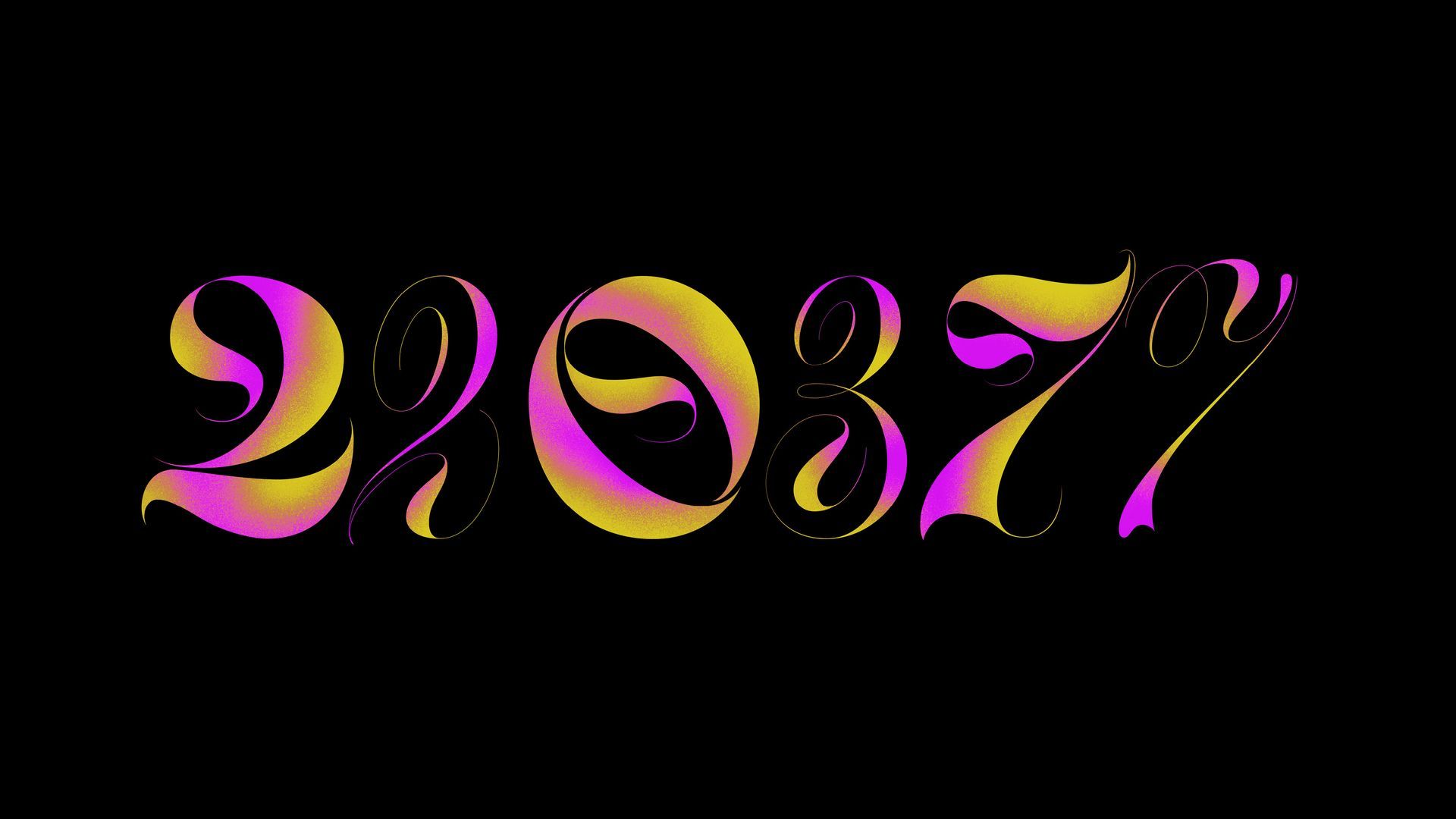
Script Meets Franktur Alphabet | Type Design
In January 2023 I studied Blackletter again, this time under the tuition of John Stevens. This is my sixth time studying this calligraphy style and I’m currently fascinated by the Fraktur ultra bold version of Rudolf Koch.
With the lettering design above, I am conceptualising two styles that are close to my heart, while exploring further shapes, contrast, colour and texture.
36 Days of Type | 2023 Edition
In 2016 and 2017, I joined 36 Days of Type designing two sets of display uppercase alphabets. My 2016 entry turned into my first independent font family called Green Fairy.
Inspired by the lettering project above, I decided to develop two sets of display alphabets and join the 2023 edition again. I hope you’ll enjoy them as much as I did while creating them.
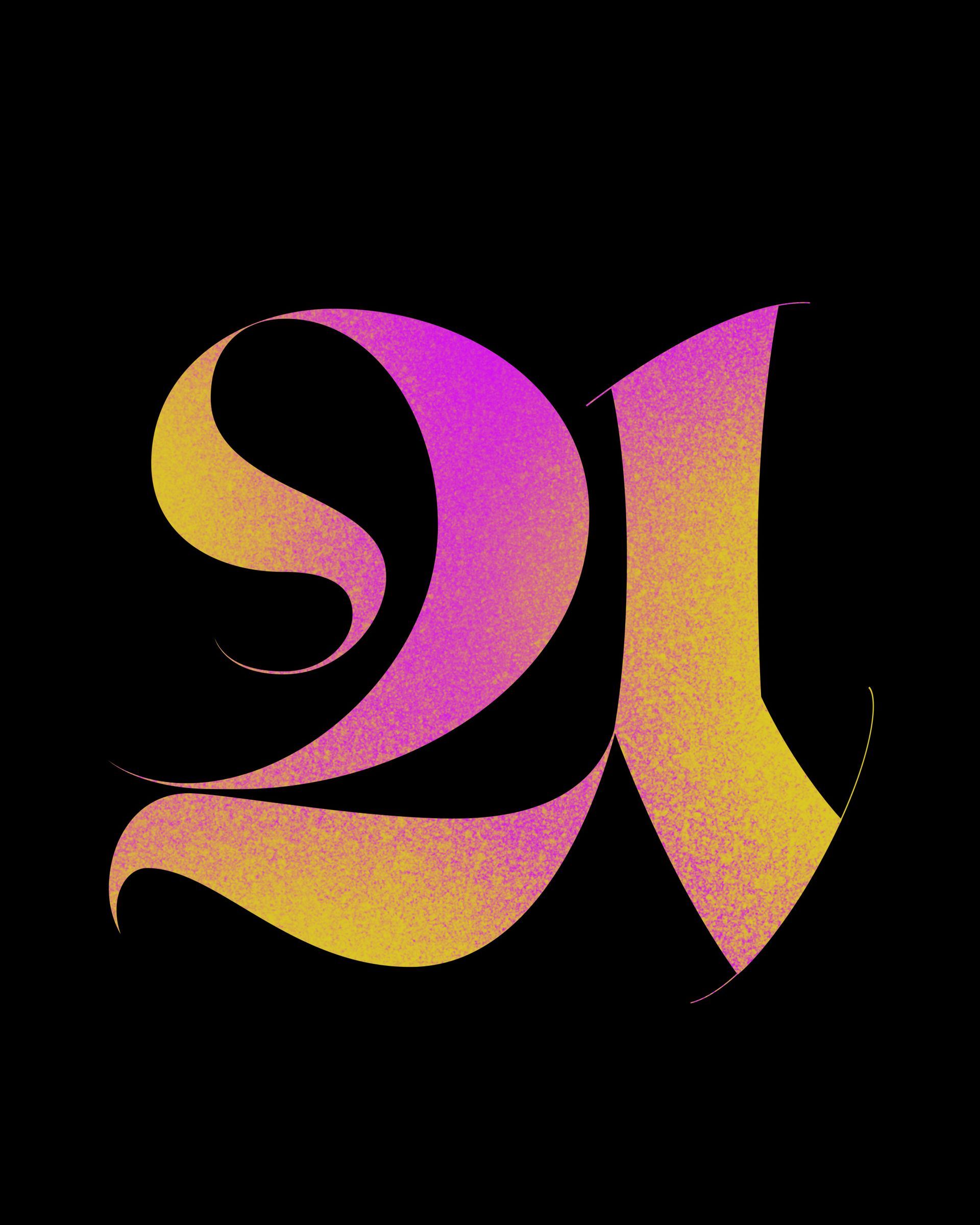
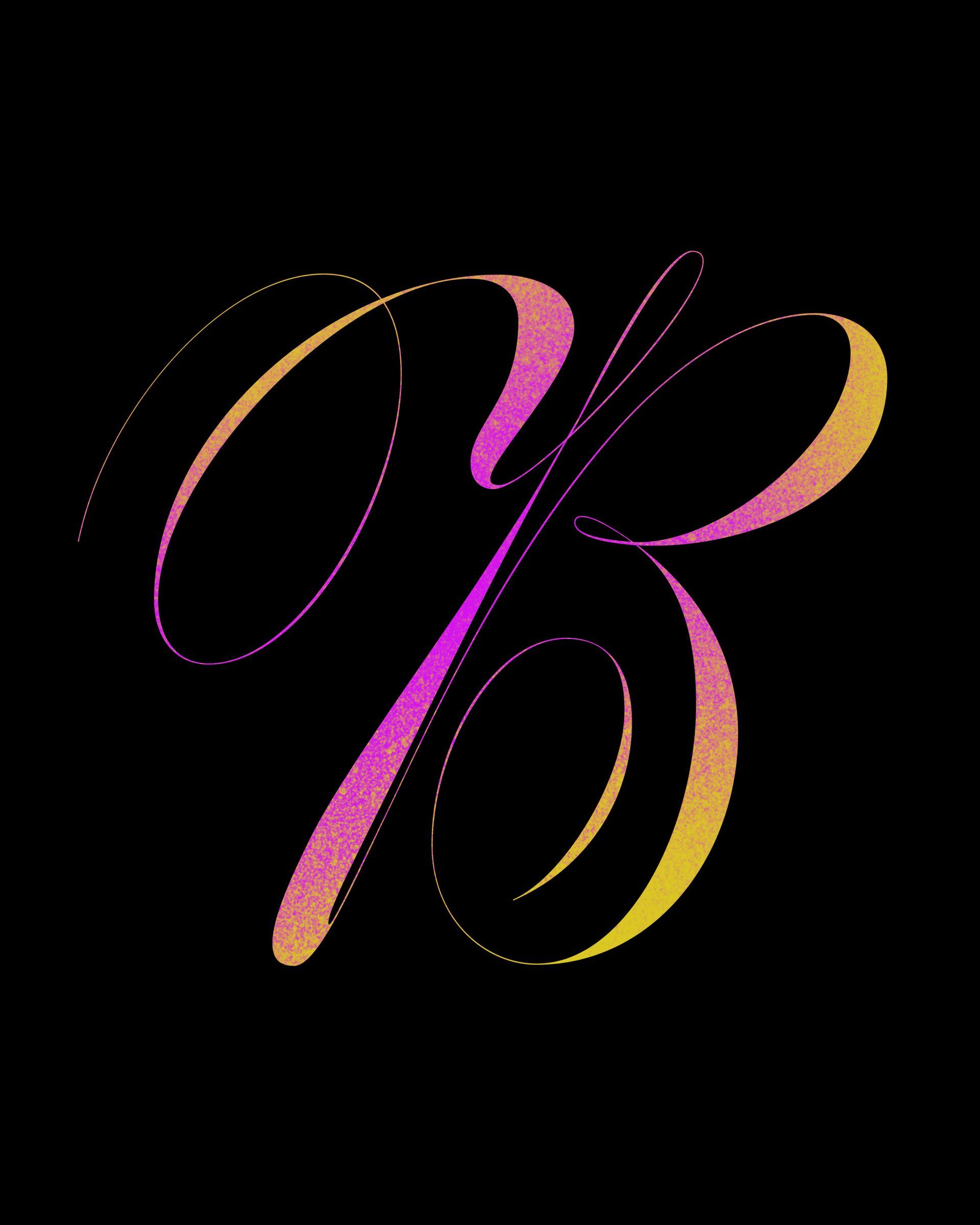
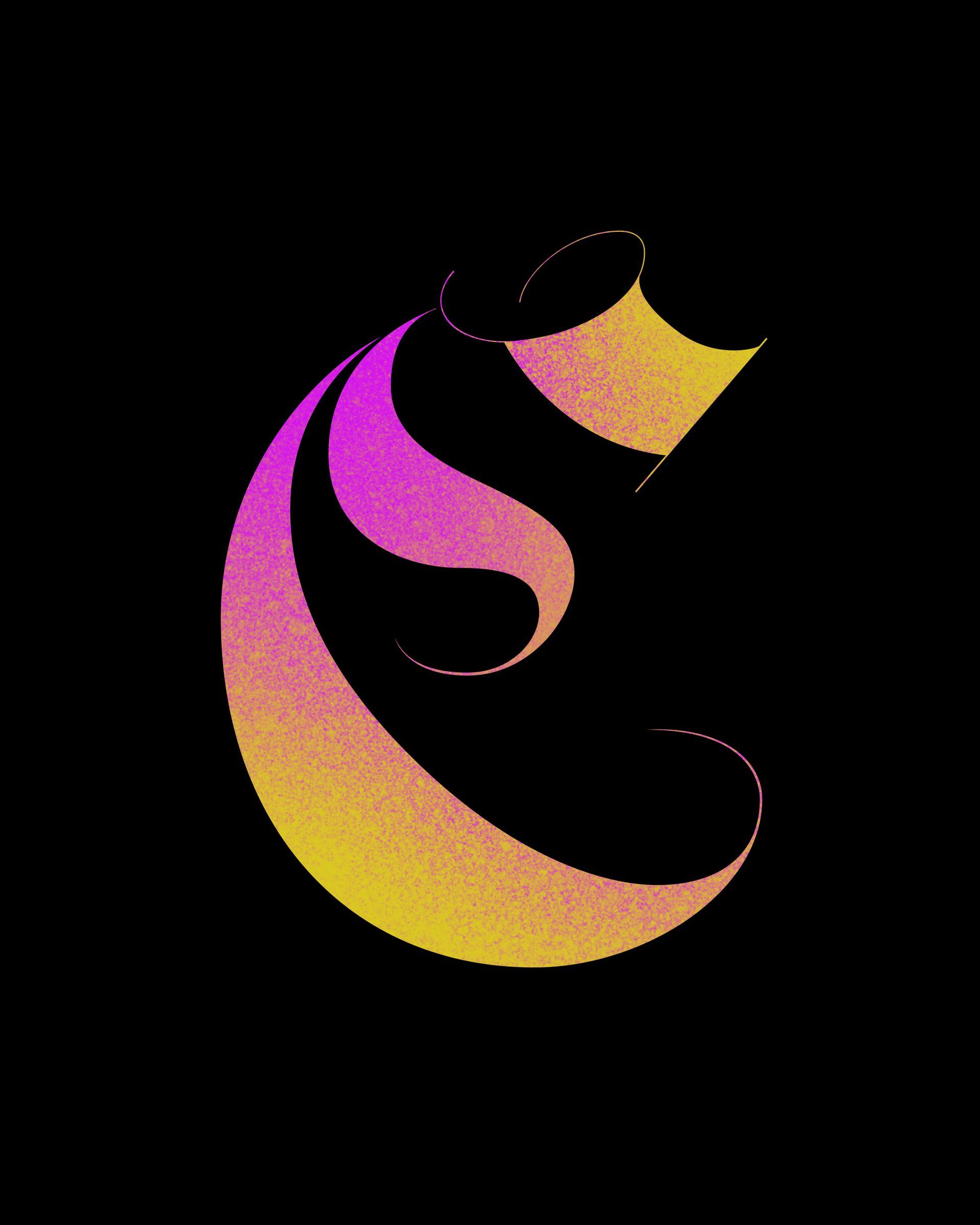
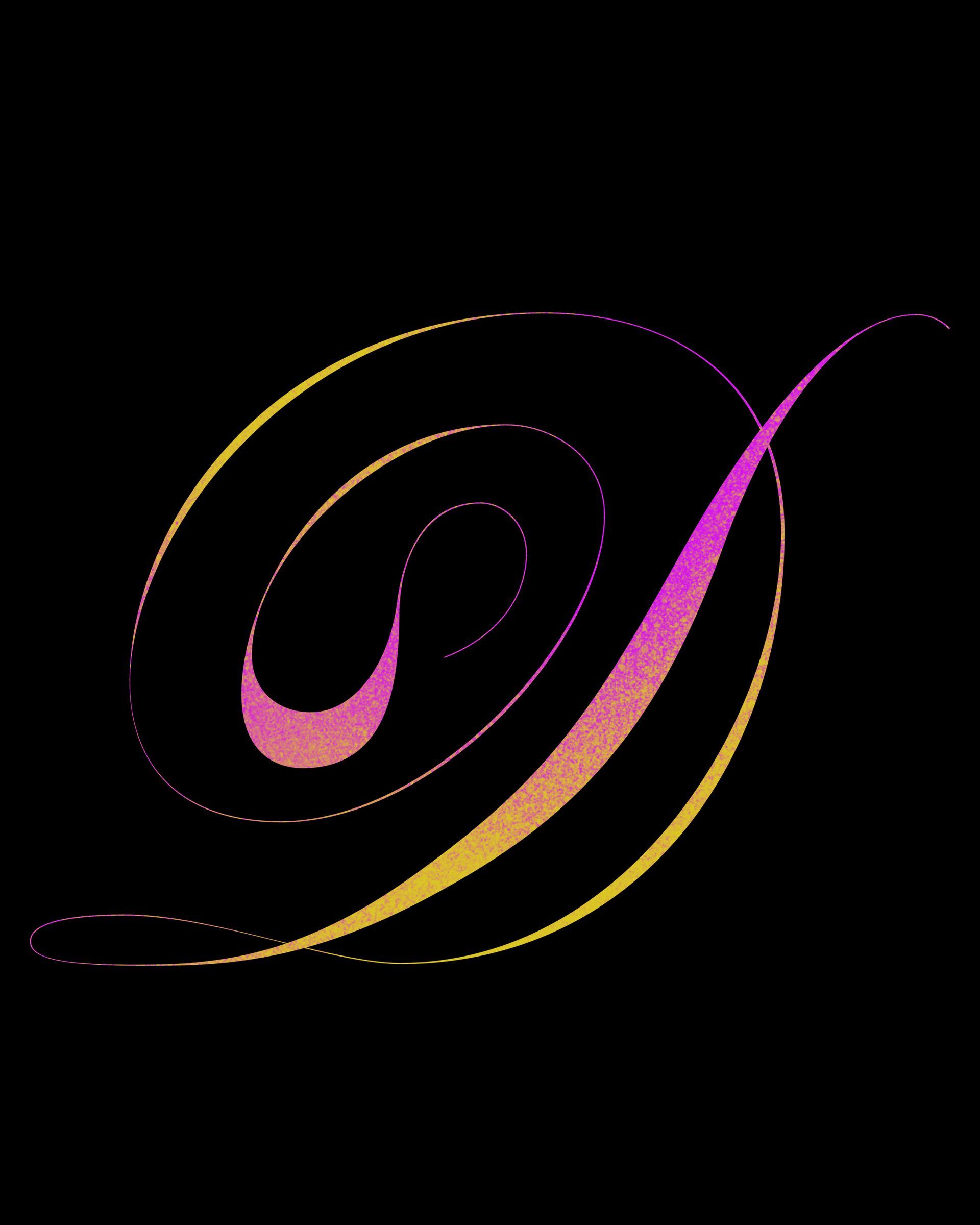
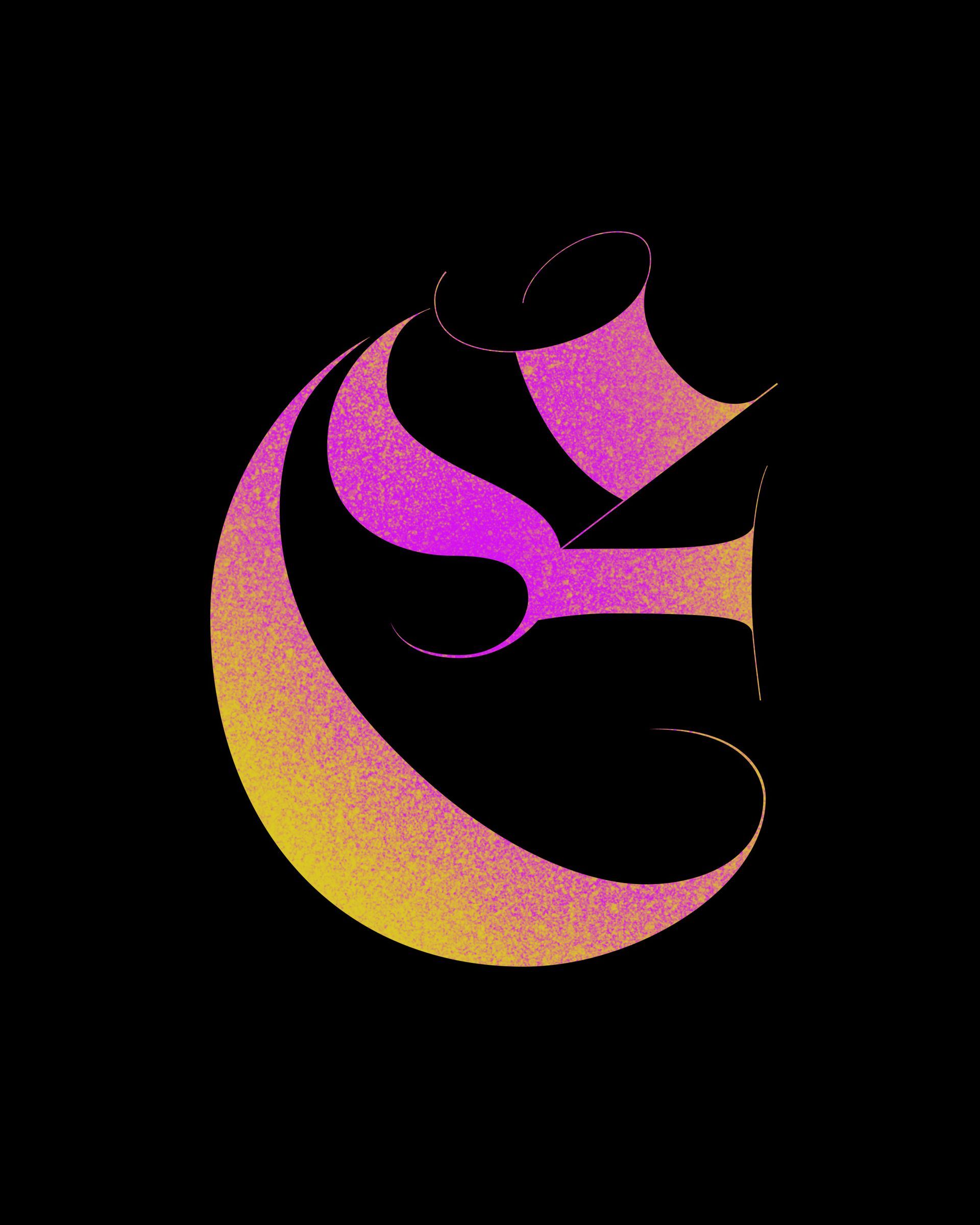
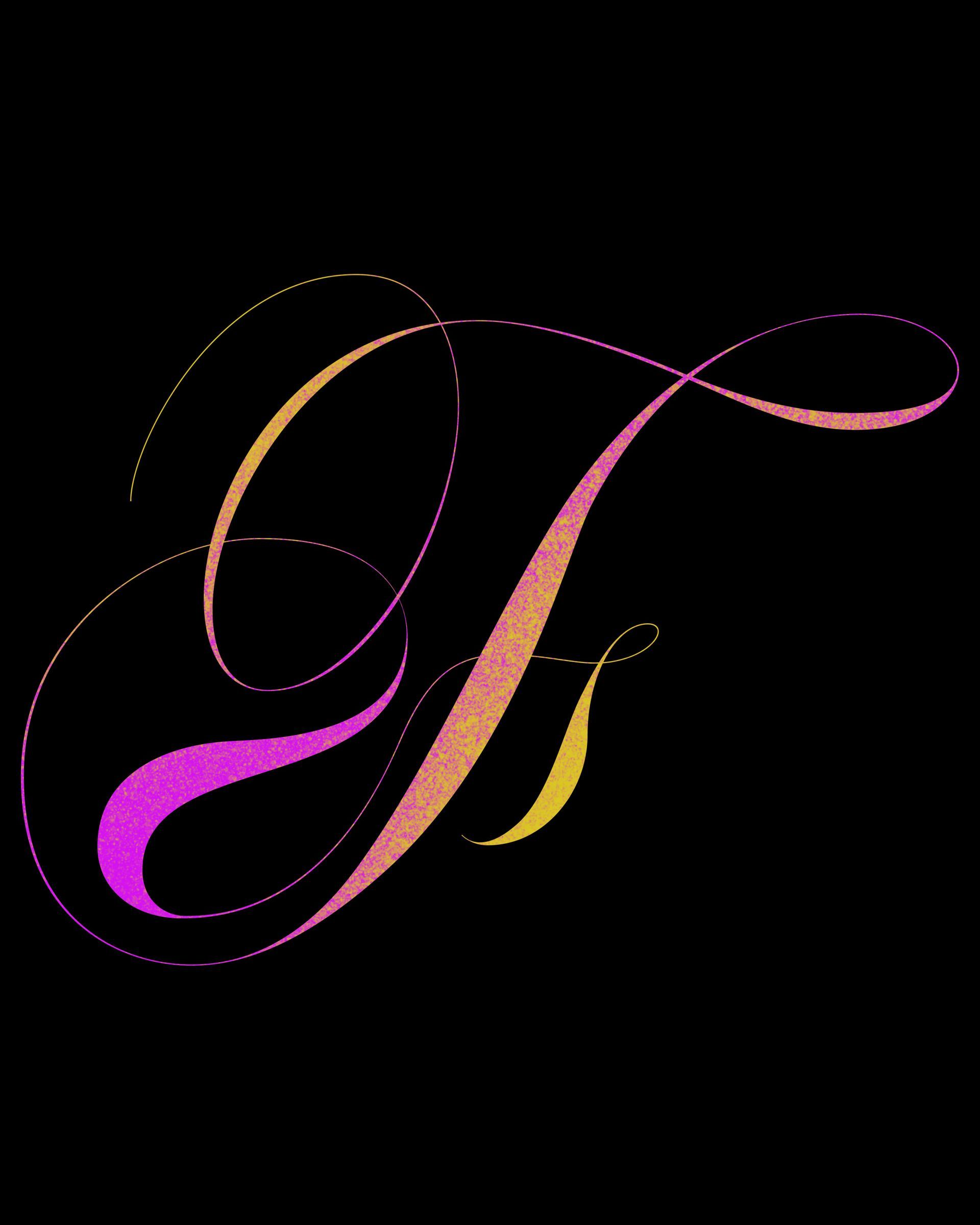
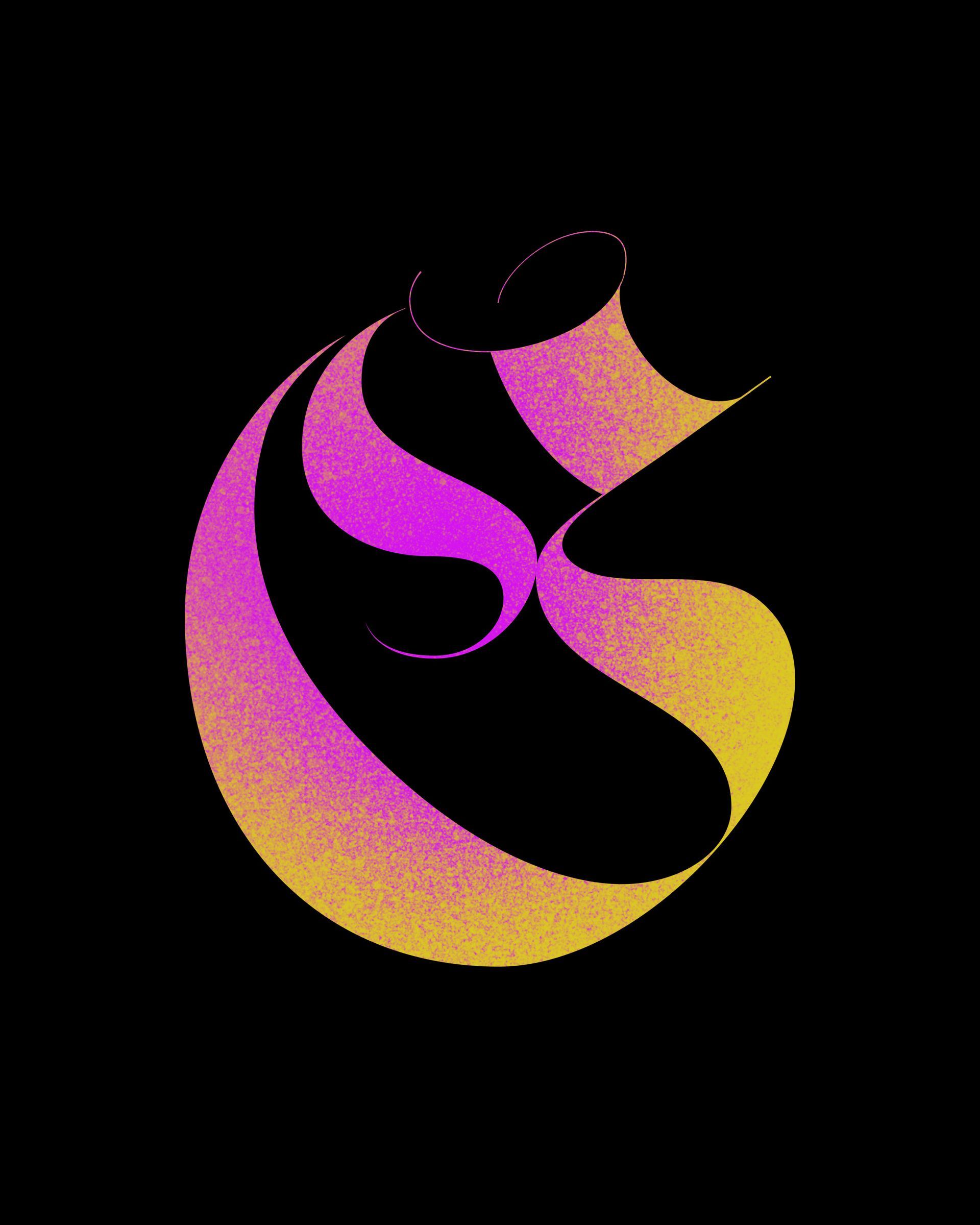
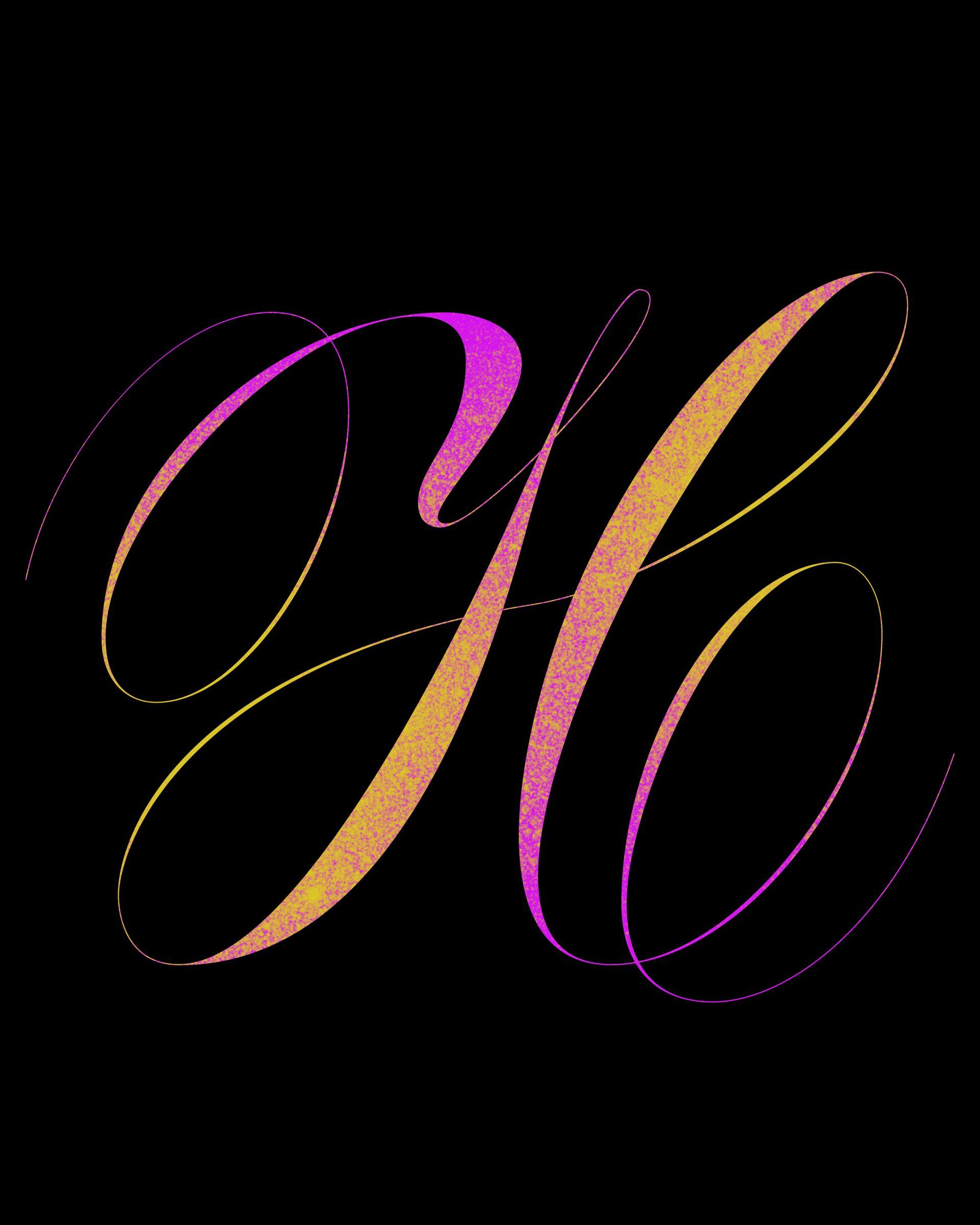
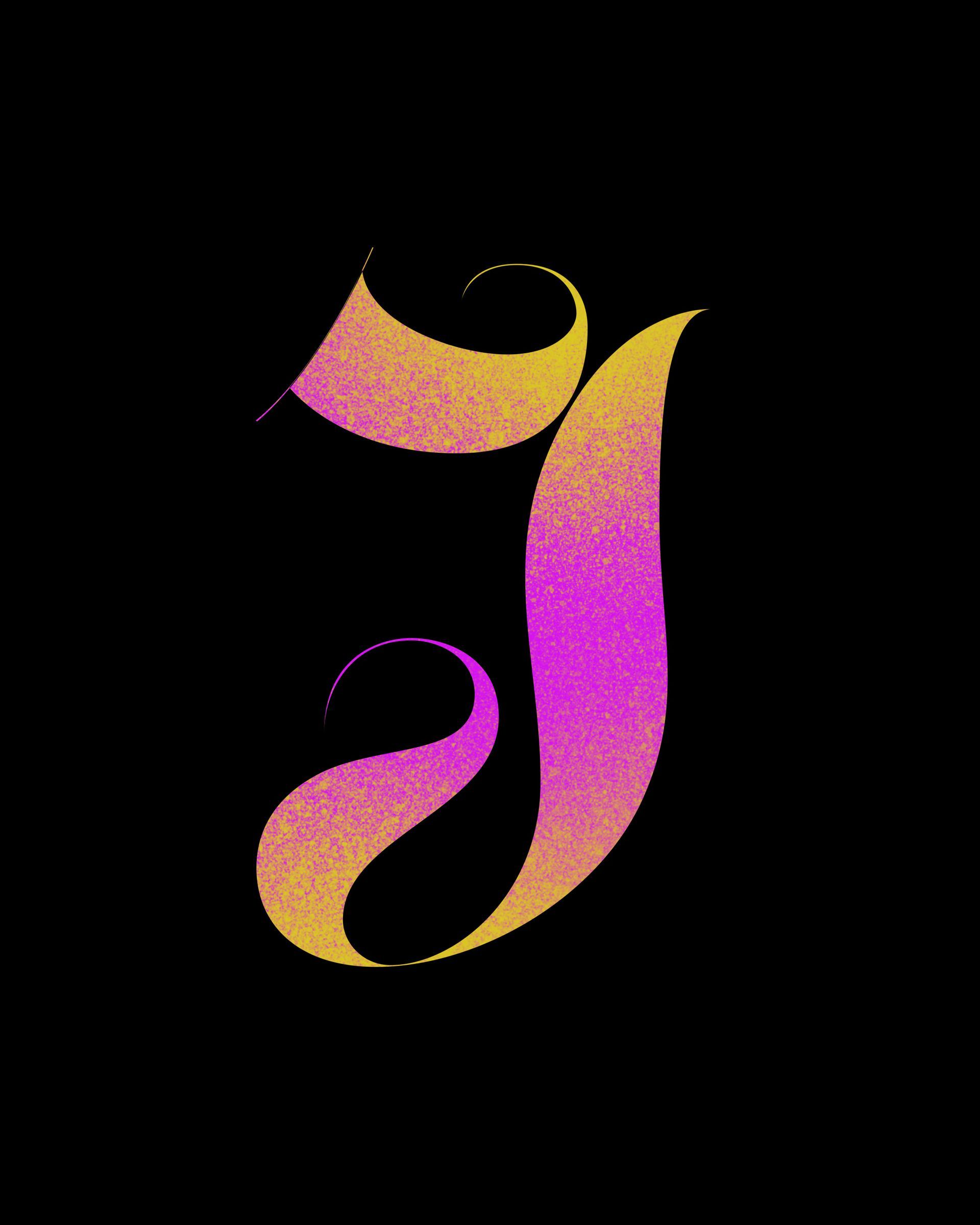
Below you can see a few original pencil sketches of the Script and Fraktur alphabets.